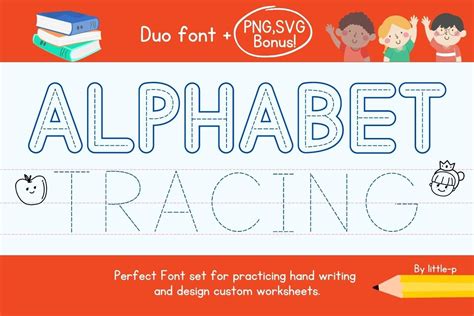
Alphabet Tracing Font. Web download letstrace font family · free for commercial use · this font is for learners to trace, and comes in ruled and unruled. Web jul 8, 2022 404 29.
Web alphabet letter tracing font (installable) that shows children how to correctly form each letter and number. Web download letstrace font family · free for commercial use · this font is for learners to trace, and comes in ruled and unruled. Web jul 8, 2022 404 29.
Web download letstrace font family · free for commercial use · this font is for learners to trace, and comes in ruled and unruled. Web jul 8, 2022 404 29. Web alphabet letter tracing font (installable) that shows children how to correctly form each letter and number. Web download letstrace font family · free for commercial use · this font is for learners to trace, and comes in ruled and unruled.